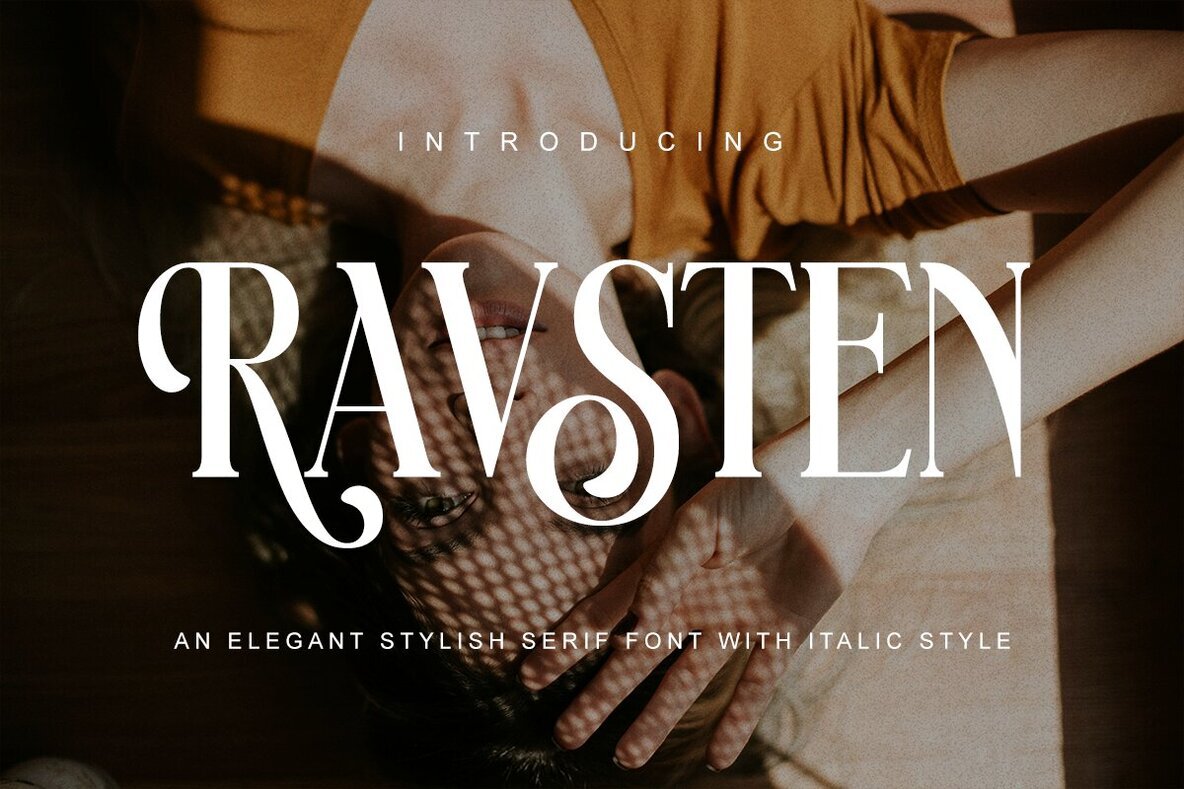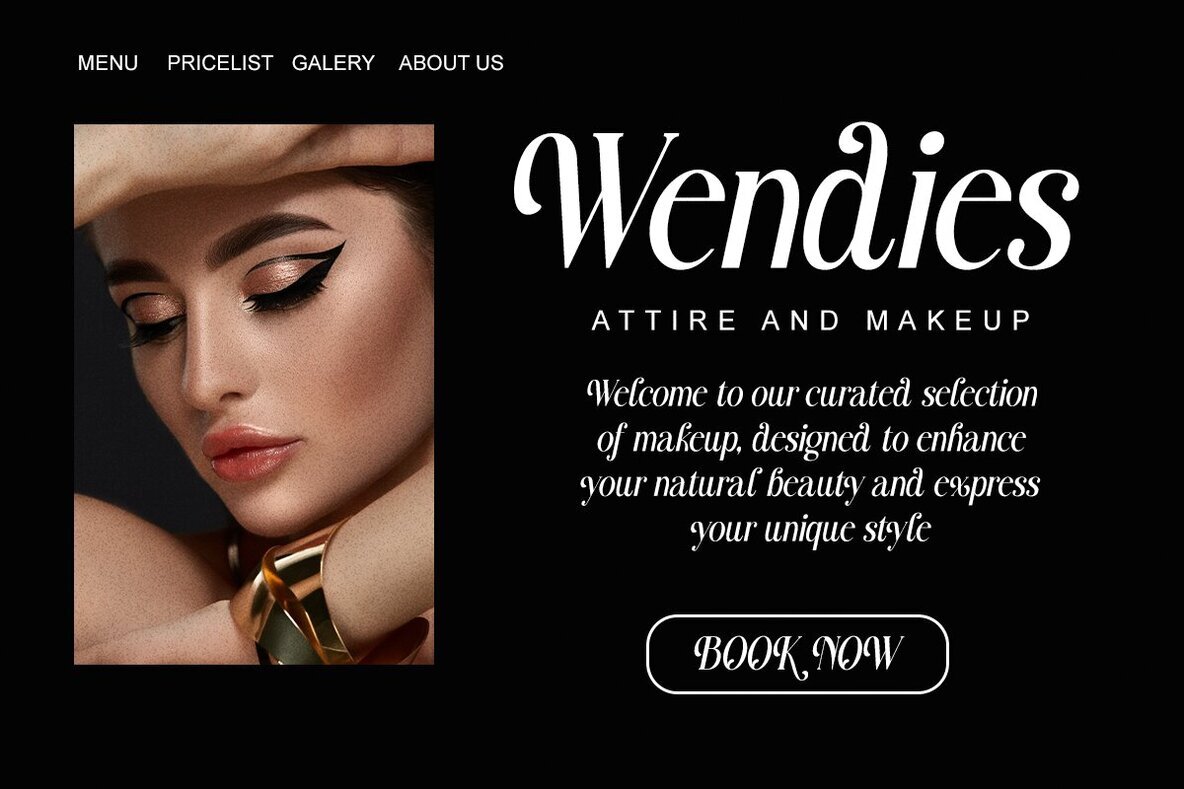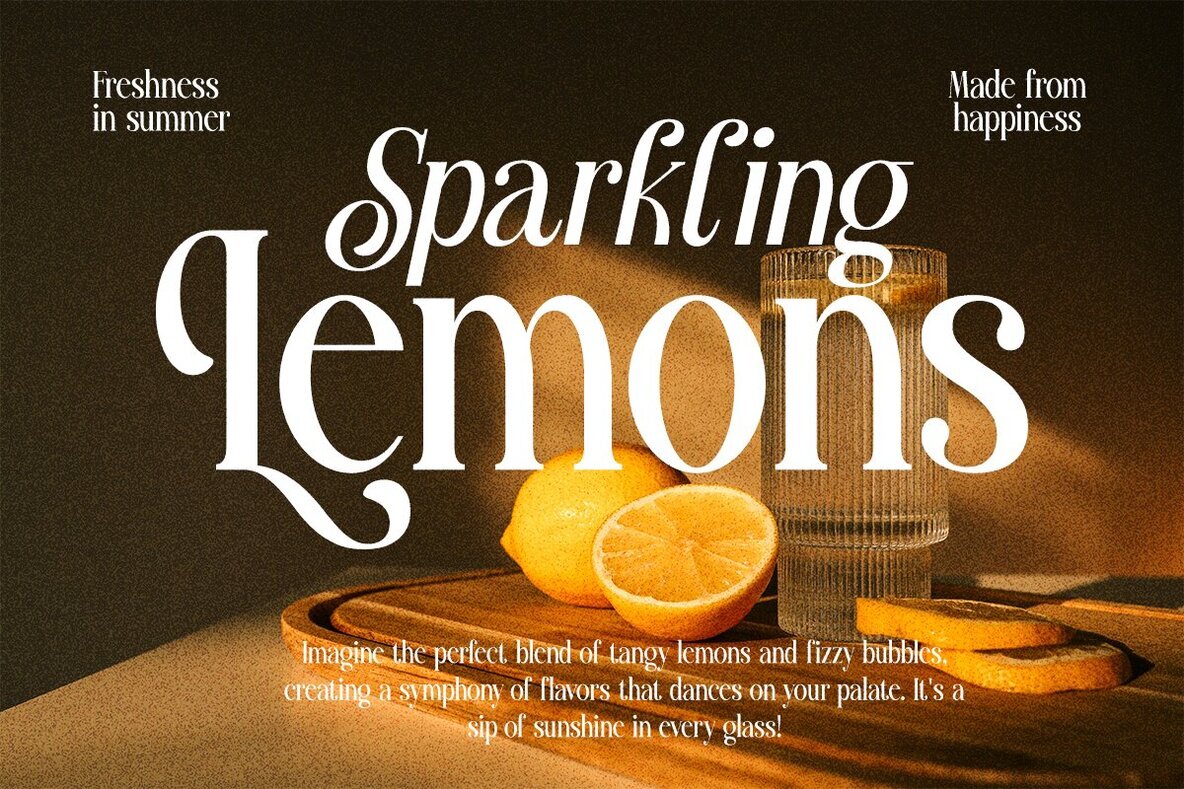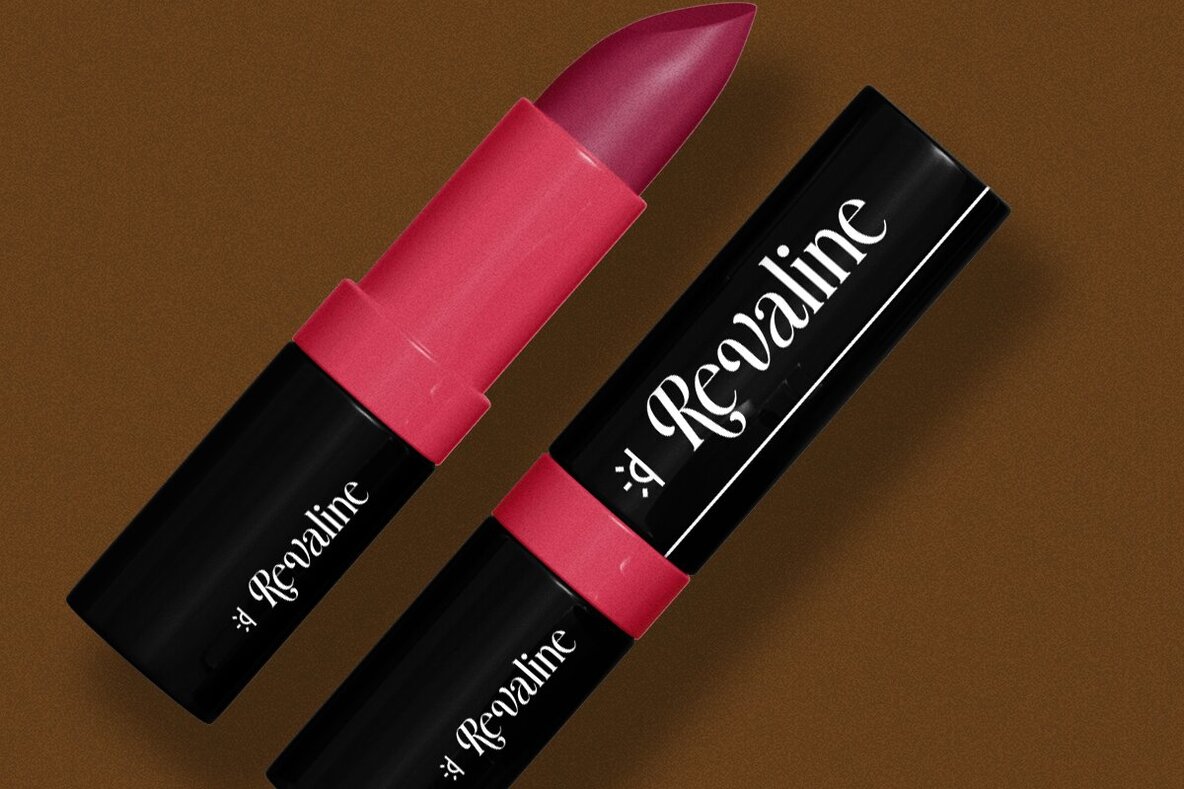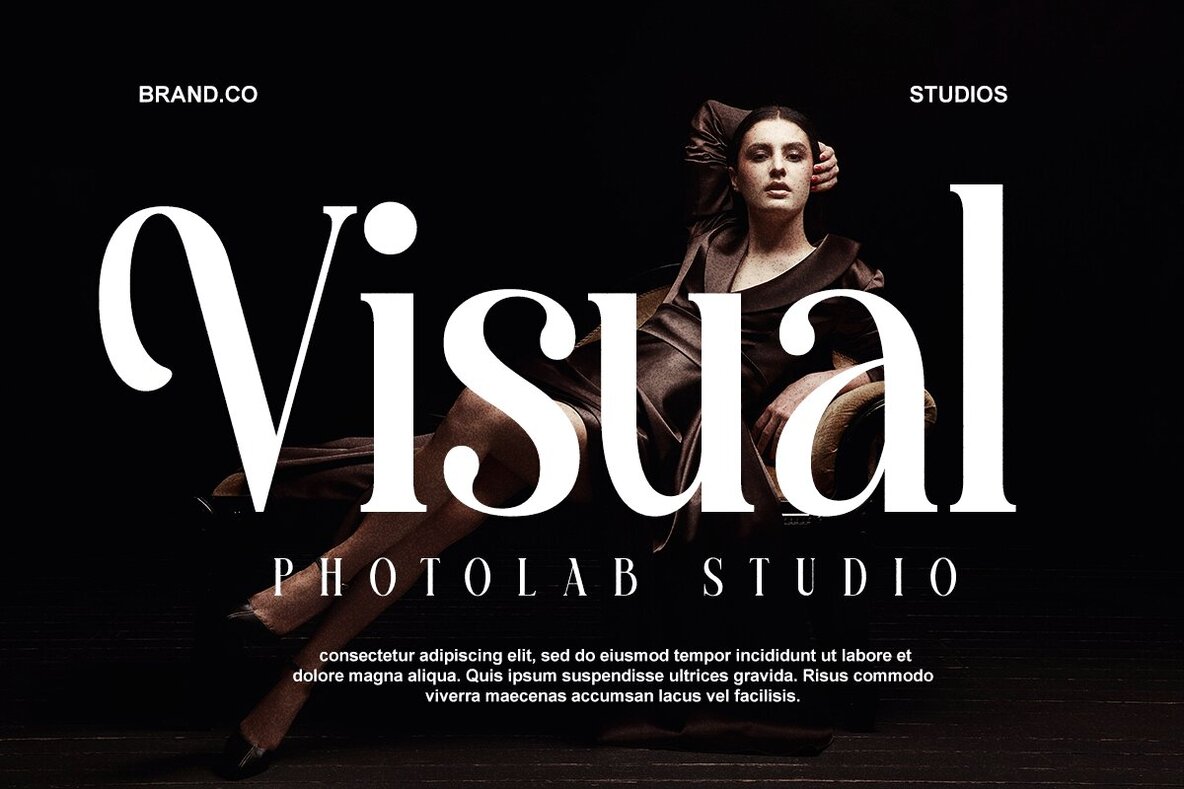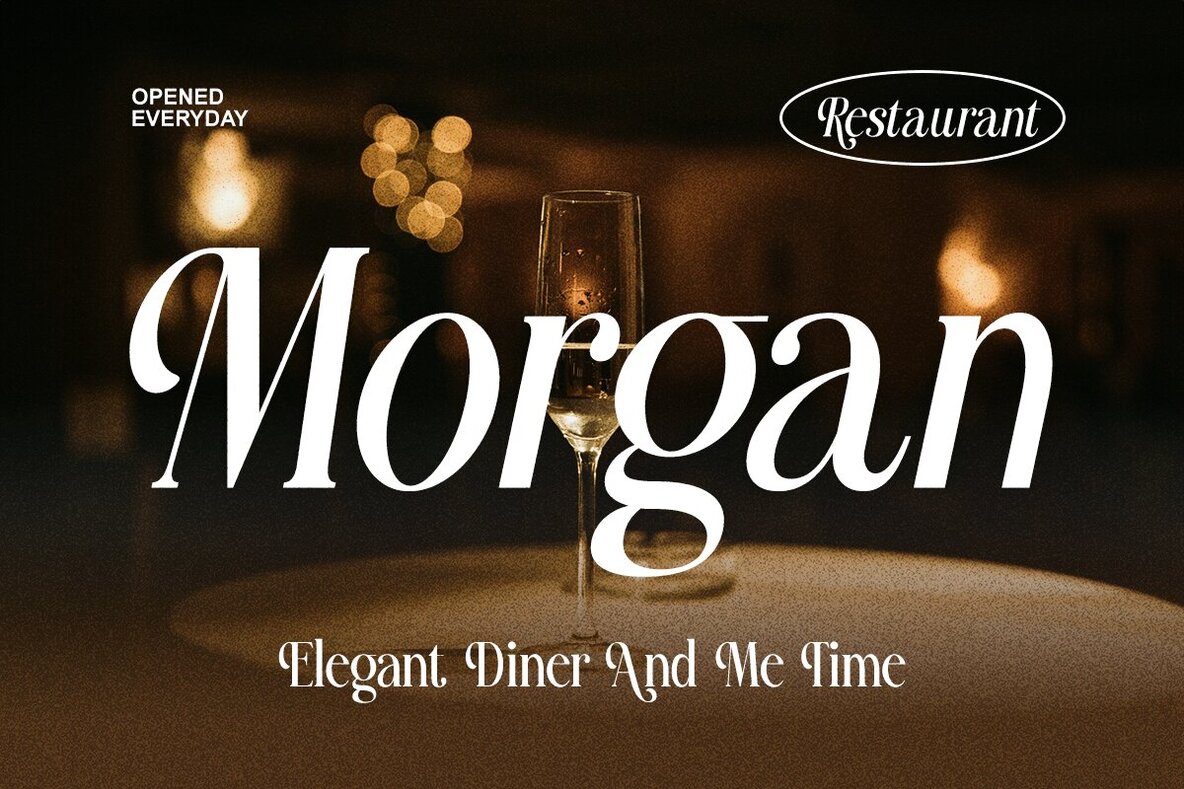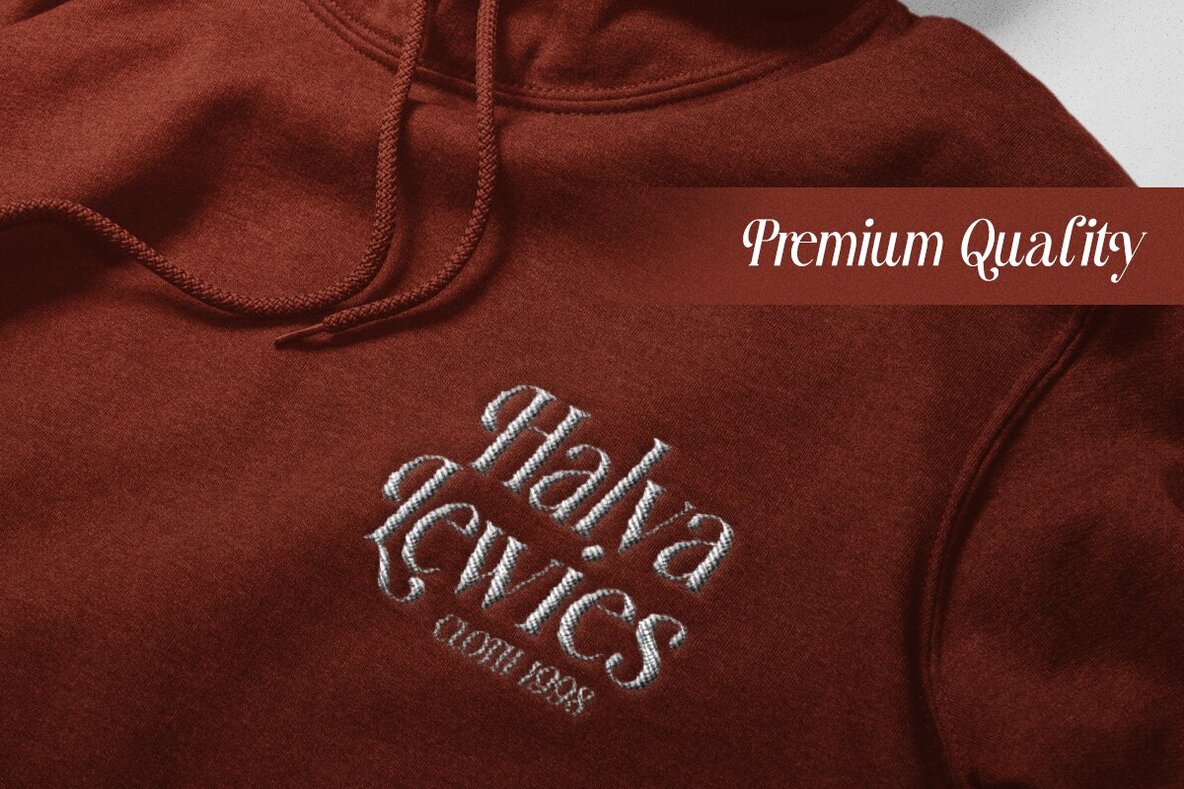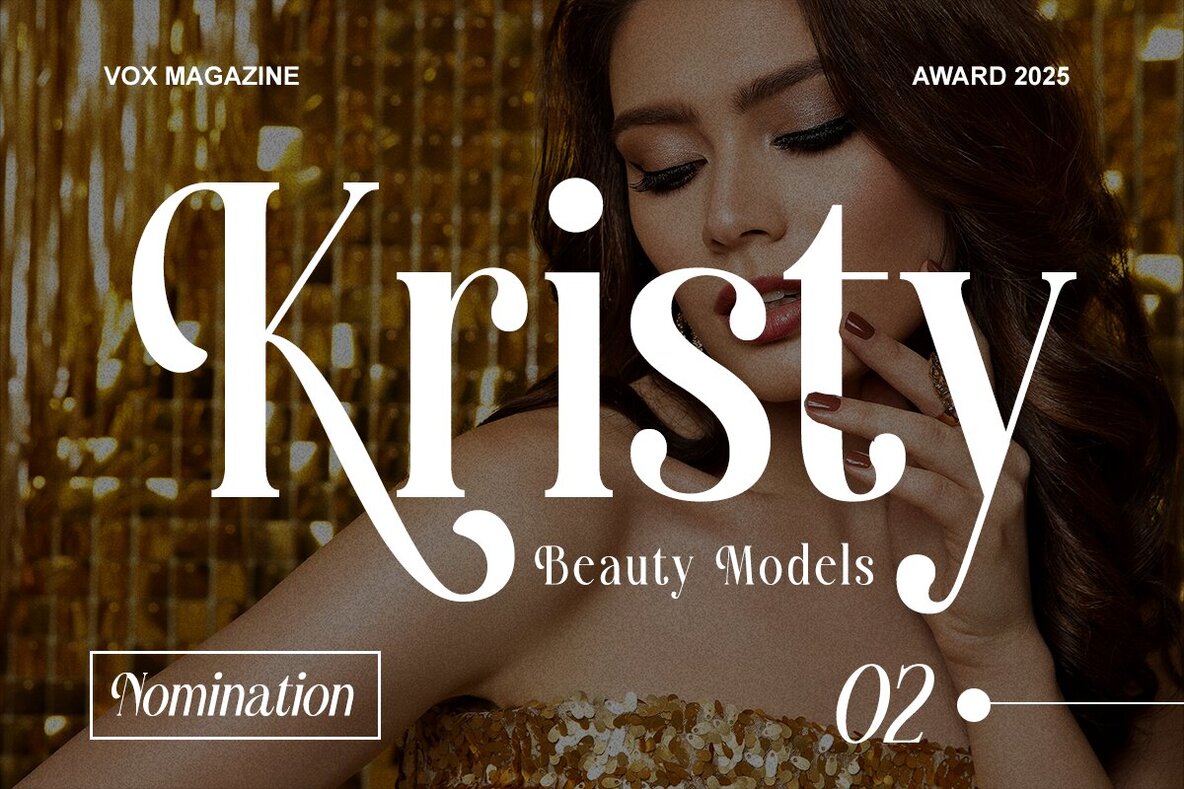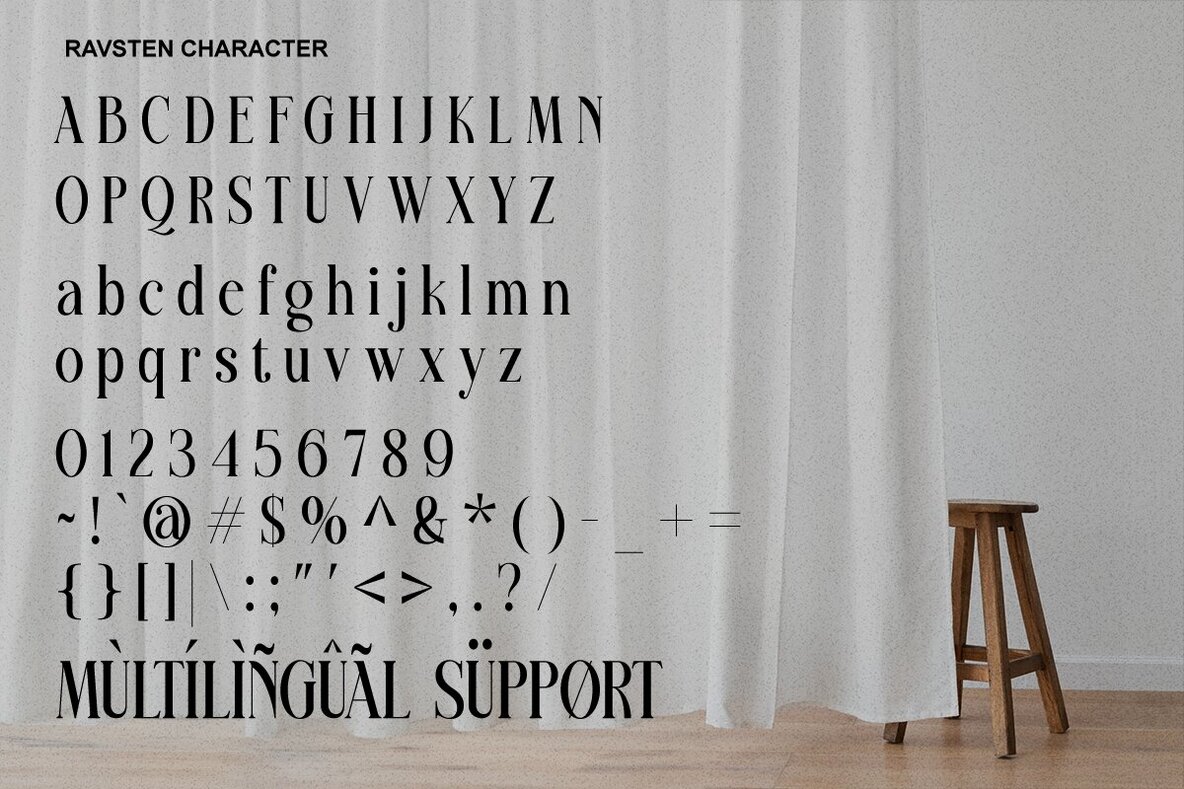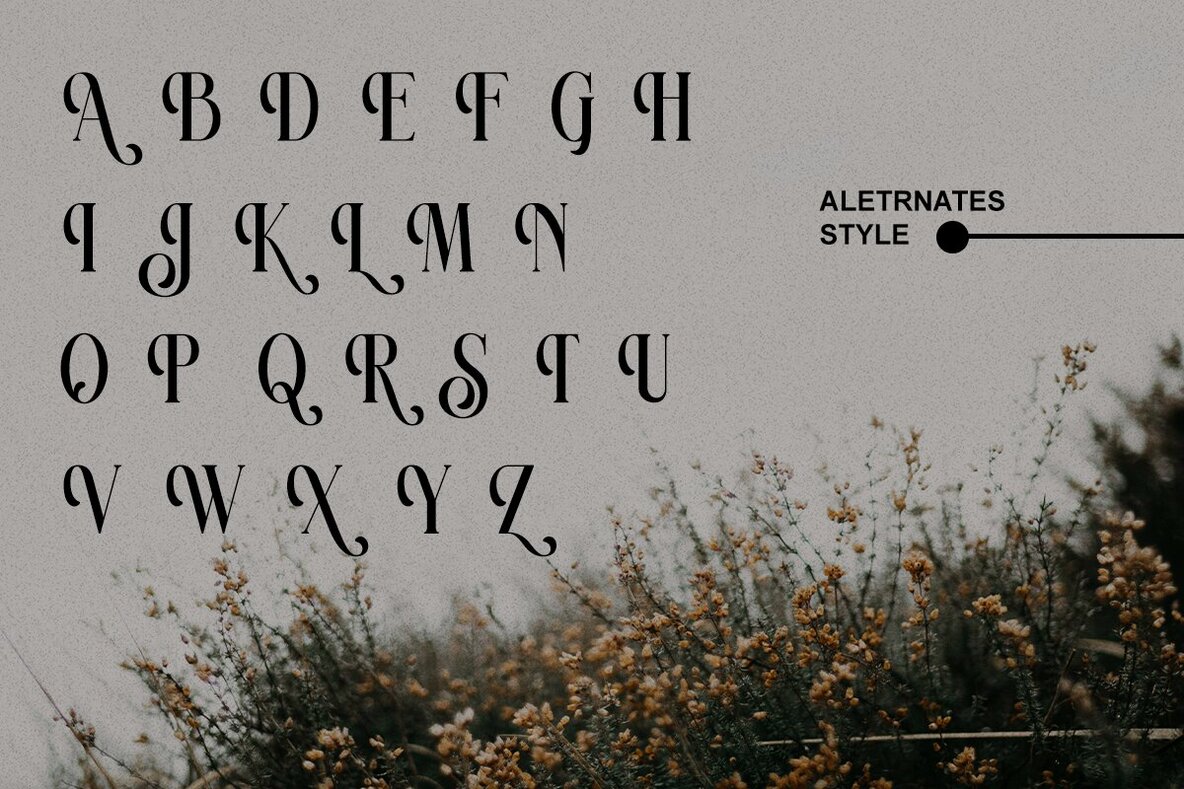
Ravsten Font
Introducing Ravsten, an exquisite condensed serif font with an italic style that beautifully captures vintage charm and nostalgia. Its unique blend of styles brings sophistication to any design project, making it ideal for branding, editorial designs, and social media content. With Ravsten, every element of your design comes to life with a touch of elegance and style.Ravsten: The Elegant Condensed Serif Font
Versatile Design Options
Inclusive Features